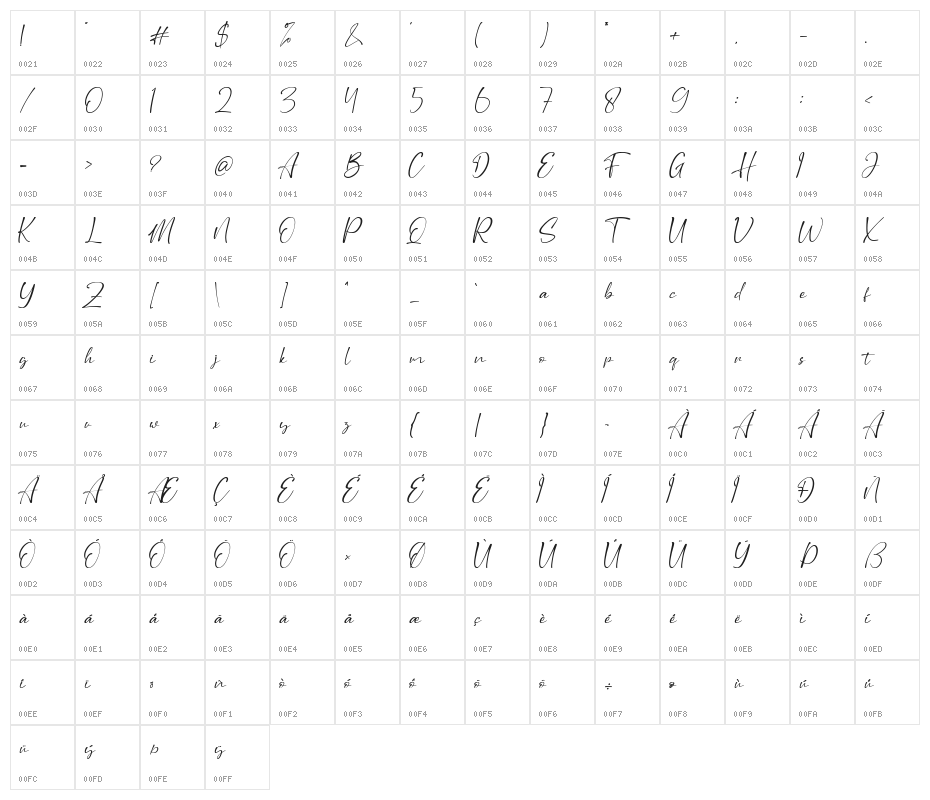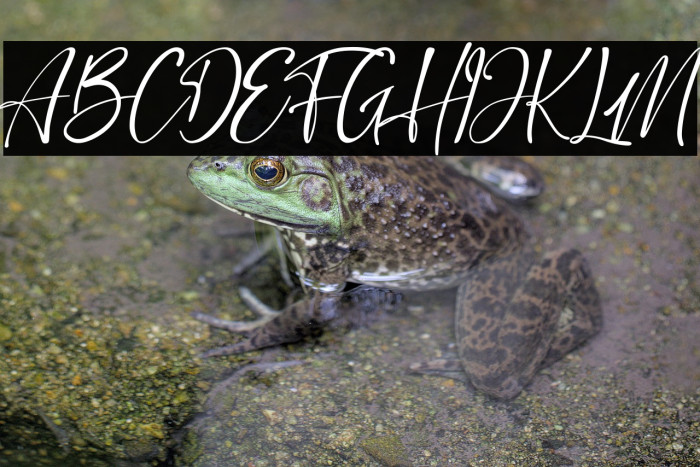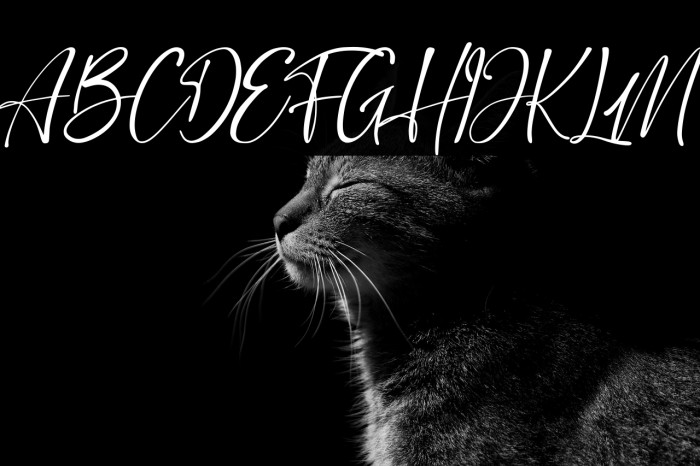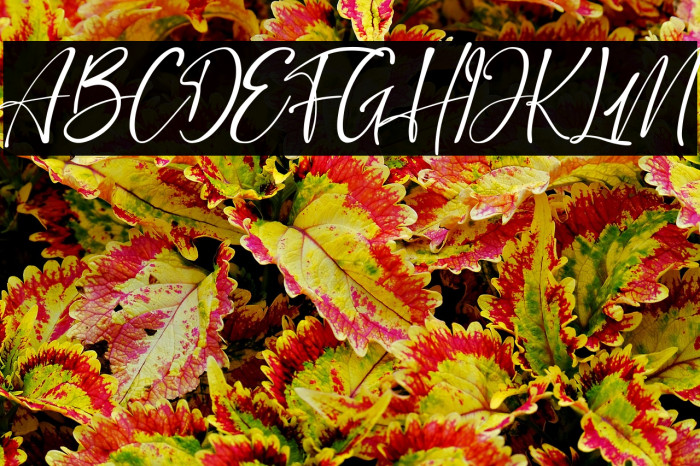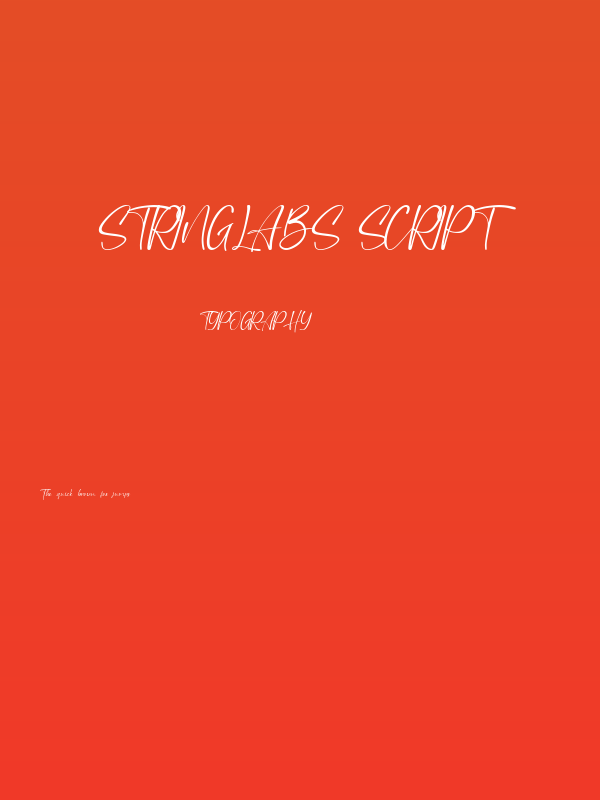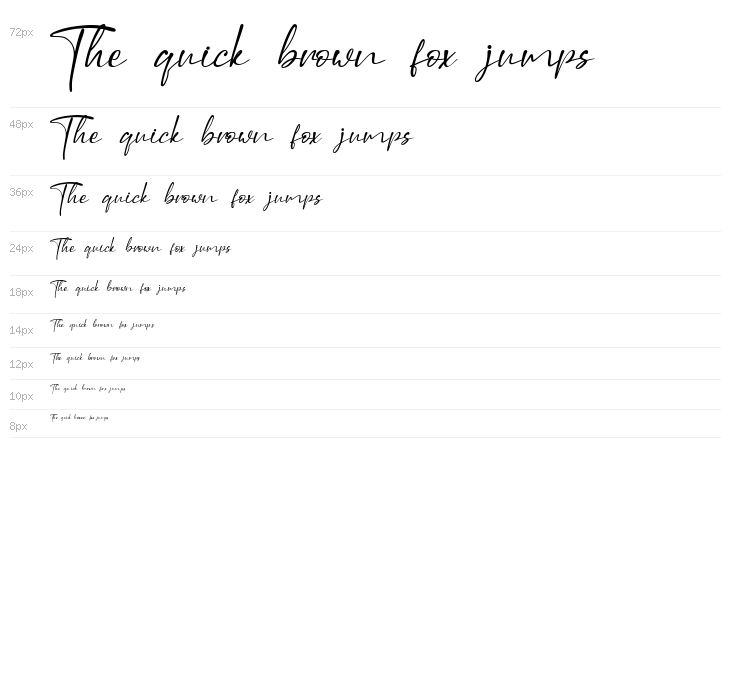
Stringlabs Script Font
Stringlabs Script Description
This font exudes a lively and elegant script style, characterized by its flowing and interconnected letterforms. The uppercase letters are bold and sweeping, with a dynamic slant that adds a sense of movement and grace. The lowercase letters maintain a consistent style, with smooth curves and loops that enhance readability while retaining a handwritten charm. The numerals are stylish and complement the overall script aesthetic, making them suitable for decorative purposes. Special characters are thoughtfully designed to match the font's fluid style, ensuring a cohesive look across all text elements.
| Overall Style | Elegant |
| Use Case | Logos, Invitations, Decorative text |
| Proposed Projects | Ideal for wedding invitations, greeting cards, branding projects, and elegant logo designs. |